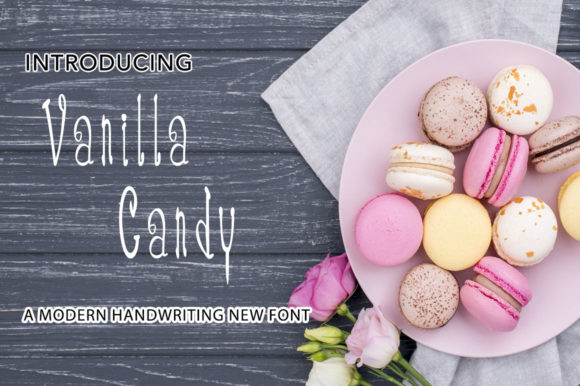
Prepare to be captivated by the Vanilla Candy Font, a mesmerizing script that will ignite your creativity and leave a lasting impression on your designs. Step into a world of whimsical elegance where each letter dances with a delicate charm, especially the captivating letter "G" that will steal your heart.
Crafted with love by morningmondayy, this enchanting font exudes a touch of sweetness and playfulness. Its handwritten style evokes a sense of intimacy, making it perfect for expressing your heartfelt messages or adding a touch of whimsy to your creations. Whether you're designing invitations for a special celebration, crafting personalized cards, or creating eye-catching social media posts, Vanilla Candy Font is your perfect companion.
Immerse yourself in its beautifully flowing curves and intricate details. Each stroke is meticulously crafted to create a harmonious balance between readability and visual appeal. The lowercase letters dance gracefully across the page, while the uppercase letters stand tall with an elegant flair.